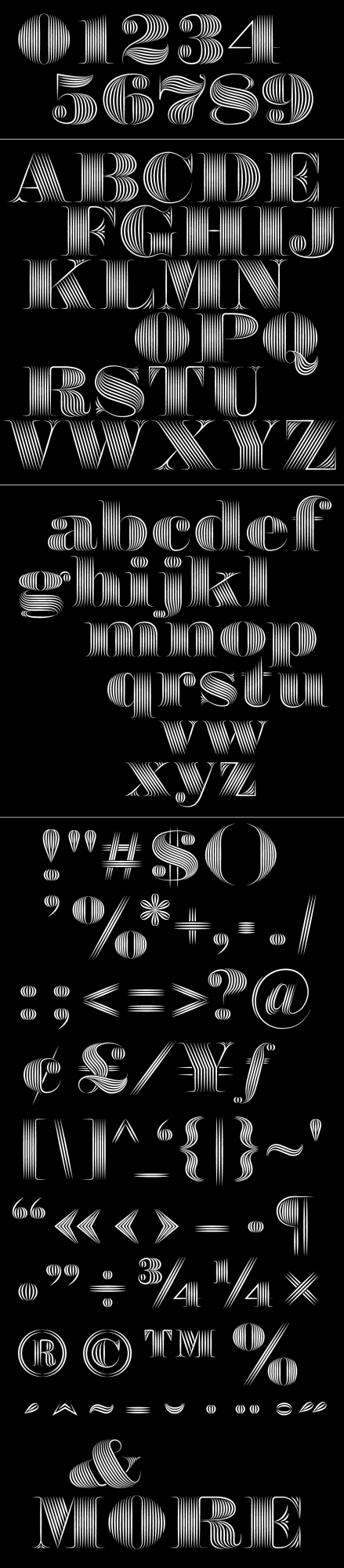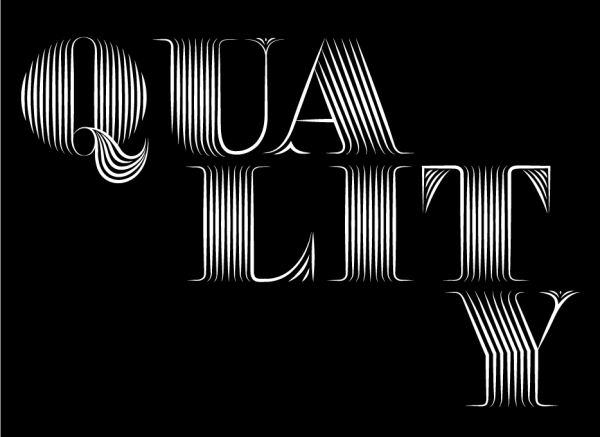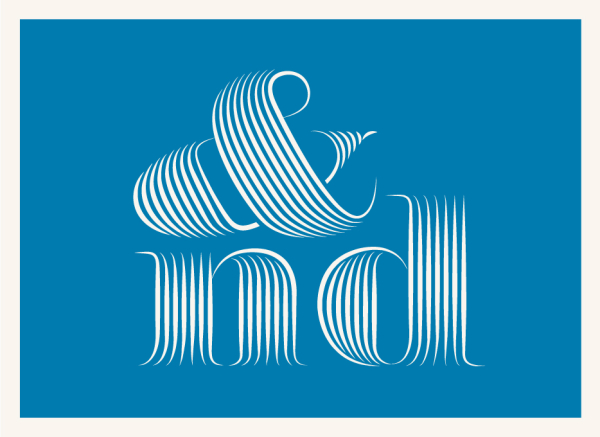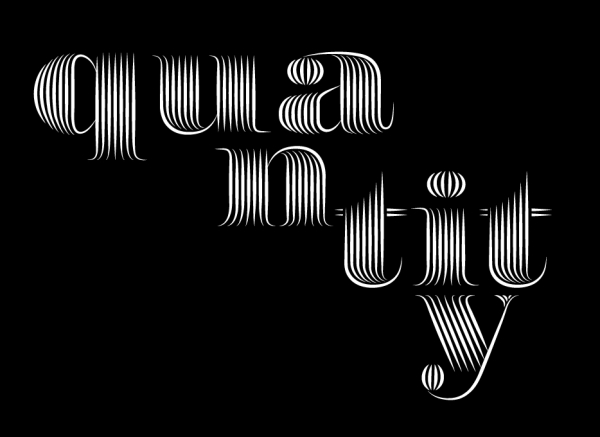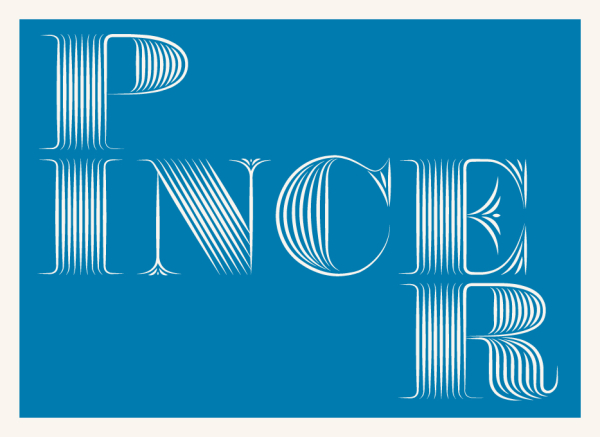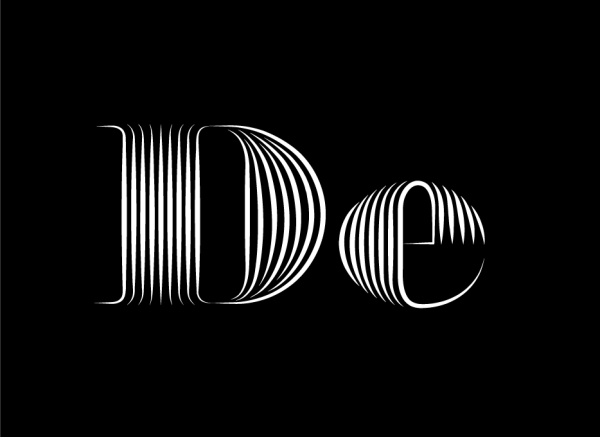
Pincer Ol
Pincer Ol is an intricate display / Didone serif font perfect for creating both elegant and memorable headlines. The font has one weight and includes all uppercase, lowercase, numeric, special and most euro standard glyphs. For a little extra a type able version (Pincer De) is also available in the fonts section of this site.